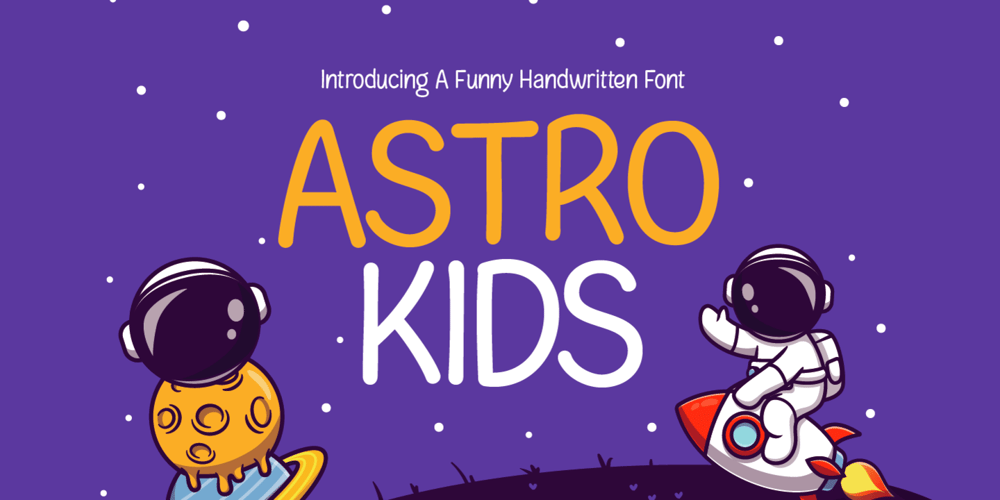
Astro Kids Font Family was designed by Zamroni Hamzah and published by Sensatype Studio. Astro Kids contains 1 styles and family package options. Astro Kids is a Kids Aero Space Quirkiy Unique font This font specially crafted for your design projects such as cute logo, unique, modern for t-shirt designs, product packaging, merchandise, and so many more with easy to use but unique results are so kids feel.Enjoy to Design any your needs with cute, lovely, and charming feel.What will you get: Astro Kids Font All Characters (from A to Z) Numbers and Punctuation Works on PC & Mac Simple installations PUA Encoded Thanks and have a wonderful day. ๐